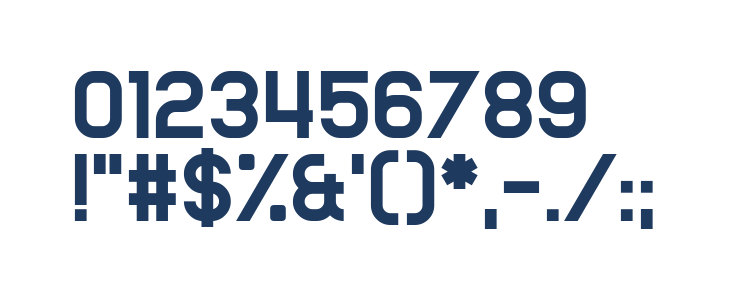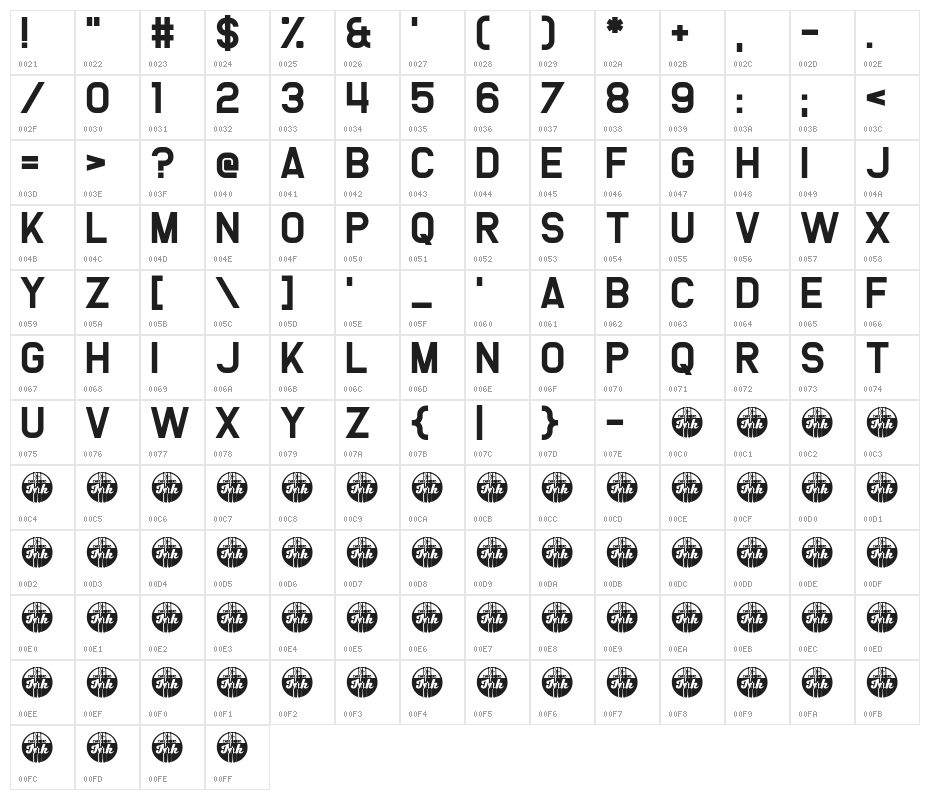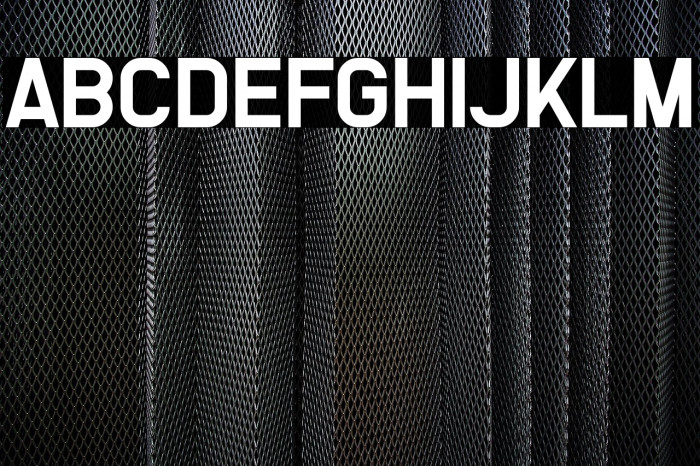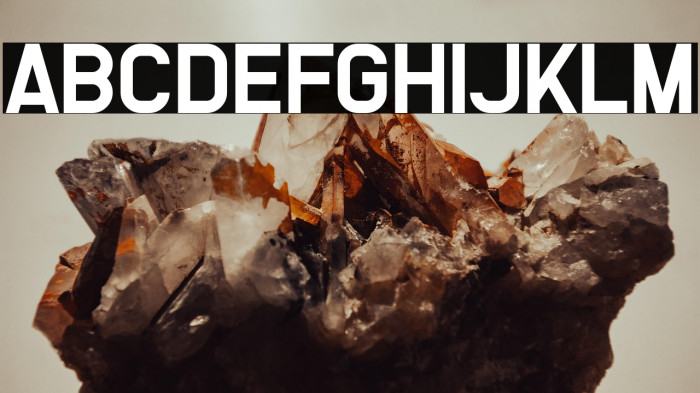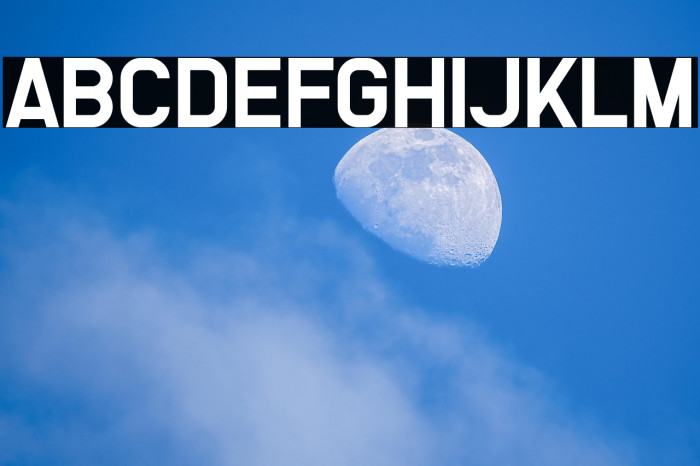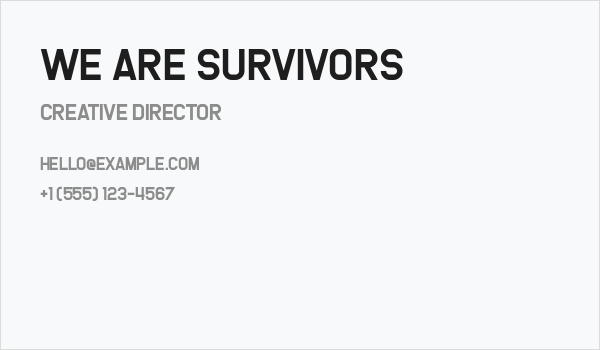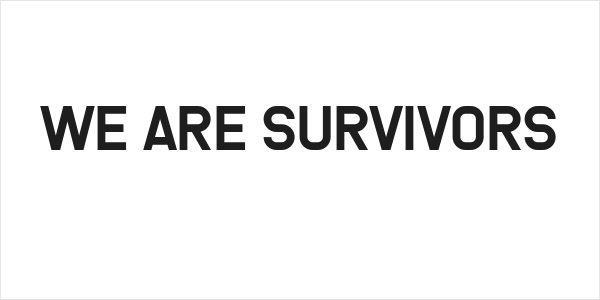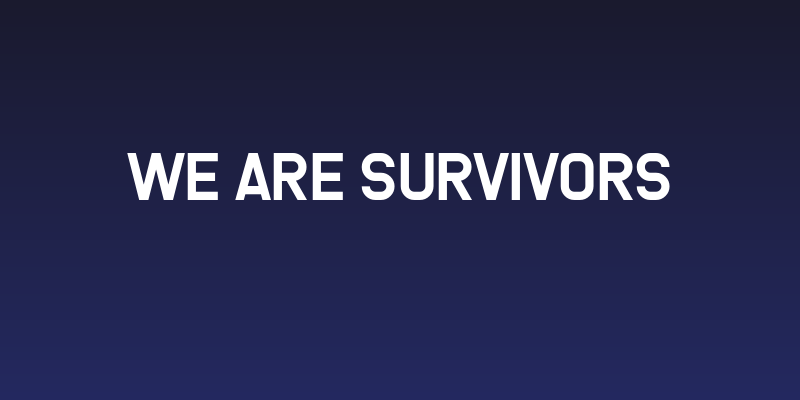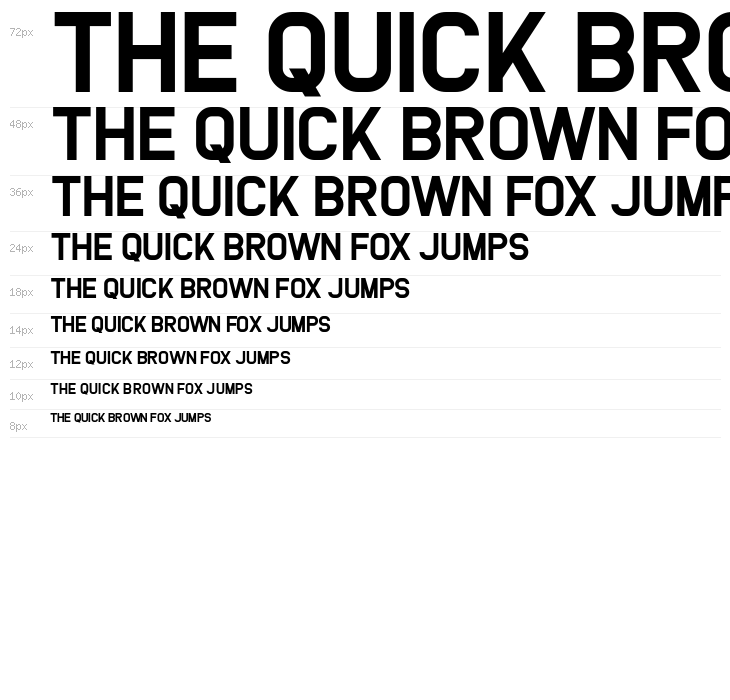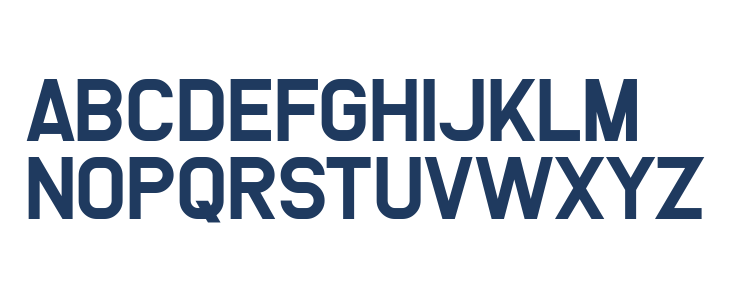
We Are Survivors Font
We Are Survivors Description
This font exhibits a bold and modern aesthetic with clean, geometric lines and a strong presence. The uppercase letters are uniform in height, creating a cohesive and structured appearance. The lowercase letters maintain the same geometric style, ensuring readability and consistency. The numerals are clear and distinct, matching the boldness of the alphabet characters. Special characters are well-defined, complementing the overall style. This font's design is ideal for making a strong visual impact, with its bold strokes and precise angles.
Use CaseHeadlines, Logos, Branding
Proposed ProjectsIdeal for branding, advertising, headlines, and digital media projects where a strong, modern look is desired.